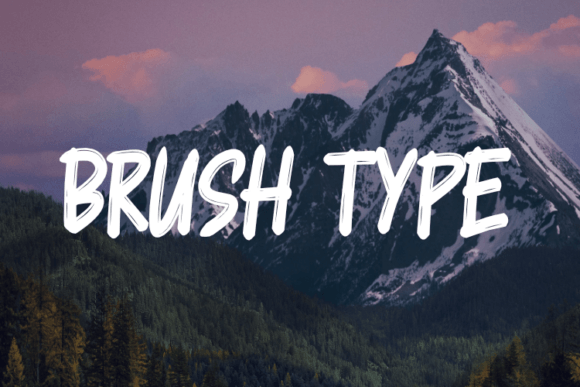
The Designer’s Dream Come True: Brush Type Font
I’ll never forget the time I was working on a project for a client who needed a custom t-shirt design. I had a clear vision of what I wanted to create, but I was struggling to find the perfect font. The design needed to be bold, yet elegant; playful, yet professional. I spent hours scouring the internet for the perfect font, but nothing seemed quite right. That’s when I stumbled upon Brush Type, and it changed the game. In this article, I’ll share my experience with Brush Type, its incredible versatility, and how it can elevate your design projects.
What Makes Brush Type So Special?
Brush Type is an extraordinarily versatile font that has become my go-to design companion for apparel such as t-shirts, sweatshirts, and more. Its universal compatibility makes it seamless to integrate with any design software, empowering your creative process across all platforms.
• ✨ Universal Compatibility: Brush Type works flawlessly with any design software, making it a breeze to use across all platforms.
• ✅ Endless Design Possibilities: With its wide range of styles and aesthetic preferences, Brush Type is perfect for designers, crafters, and creative hobbyists.
• 💫 OpenType Features: Brush Type takes advantage of OpenType features, allowing for advanced typographic control and customization.
• 🎨 Stylistic Alternates: The font comes with a range of stylistic alternates, giving you even more creative freedom.
While Brush Type is an amazing font, there are a few things to keep in mind:
• ⚠️ Glyph Limitations: Some users have reported that the font’s glyph library could be more extensive. However, the existing glyphs are incredibly versatile and can be used in a variety of creative ways.
• 🤔 Kerning Issues: As with any font, some users may experience kerning issues. However, these can usually be easily adjusted within your design software.
Brush Type was created with the goal of providing designers with a versatile font that could be used across a wide range of design projects. The font’s creator drew inspiration from traditional brush scripts, combining them with modern design principles to create a truly unique font.
What makes Brush Type so versatile? Brush Type’s universal compatibility and wide range of styles and aesthetic preferences make it perfect for designers, crafters, and creative hobbyists.
Is Brush Type suitable for body text? While Brush Type is perfect for headlines and titles, it may not be the best choice for body text. However, it can be used for short paragraphs or quotes.
In conclusion, Brush Type is an incredibly versatile font that’s perfect for designers, crafters, and creative hobbyists. Its universal compatibility, wide range of styles and aesthetic preferences, and advanced typographic features make it a valuable addition to any design toolbox. Whether you’re working on a custom t-shirt design or a complex illustration, Brush Type is sure to become your new go-to font.